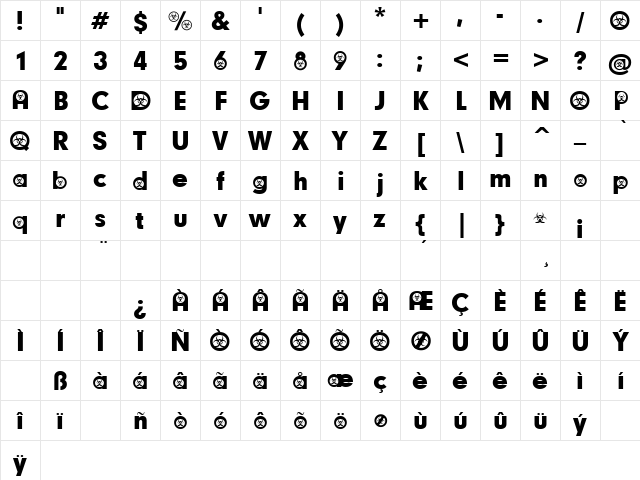
Biohazard Participants Regular
Design Context for Biohazard Participants
Biohazard Participants is a composed and adaptable typeface that performs quietly and consistently across a wide range of design contexts.
Pro Tip: Use Biohazard Participants in both headline and body roles to test its range before committing to a single application.